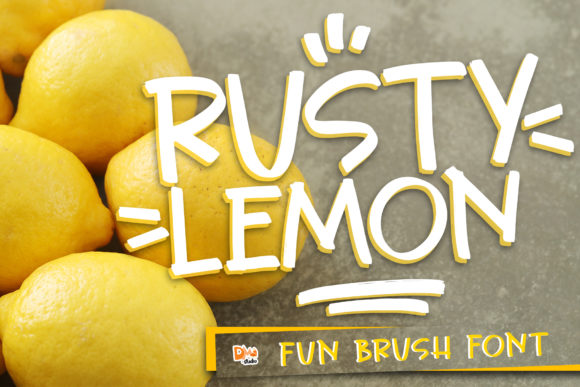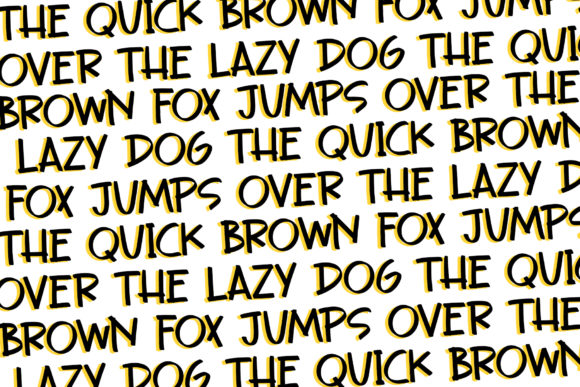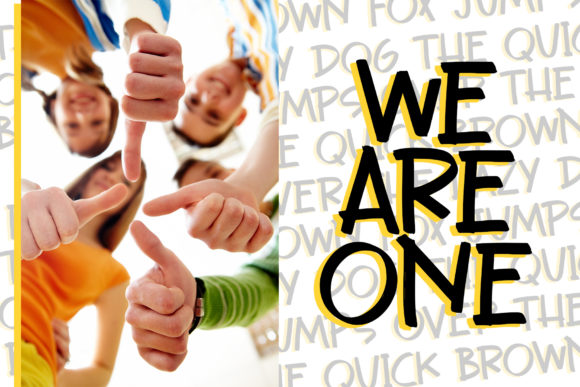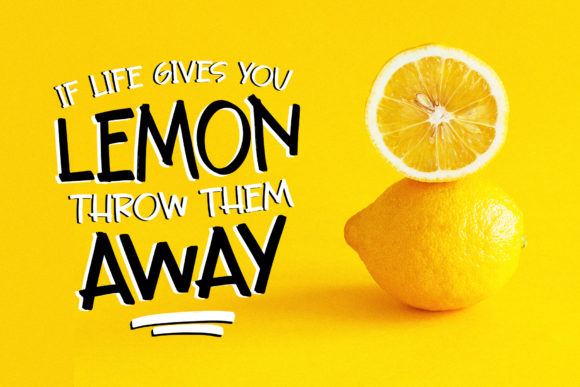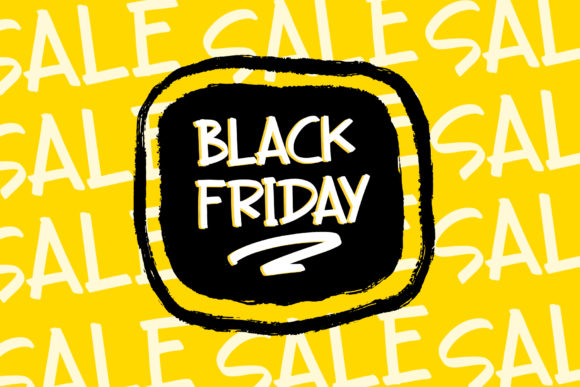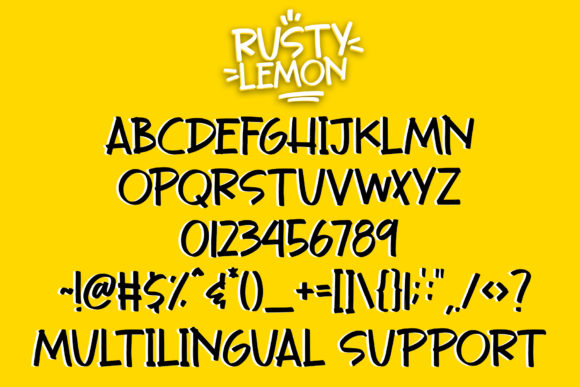
Rusty Lemon Font
About Rusty Lemon Font
Rusty Lemon is a friendly and natural handwritten font. Simple and neat, this font will be ideal for any crafting design you wish to create!